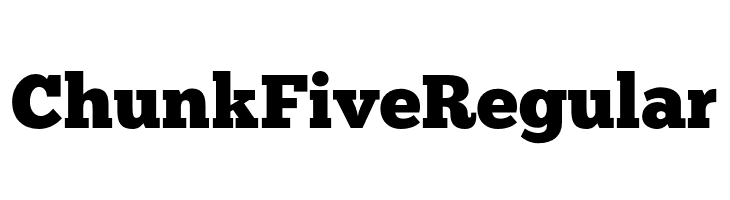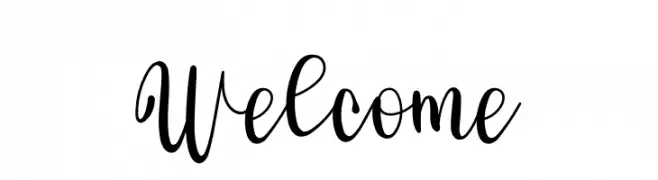
A bold, classic serif font with high contrast and elegant details.
A high-contrast serif font with elegant, sharp serifs and a classic style.
A bold and robust slab serif font with strong vertical strokes and block-like serifs.
A whimsical collection of hand-drawn heart designs with varied styles.
A playful, hand-drawn font with rounded, bold characters.
A playful and elegant script font with a handwritten feel.
A lively, flowing script font with elegant loops and cursive strokes.
A playful, handwritten script font with smooth, flowing lines.